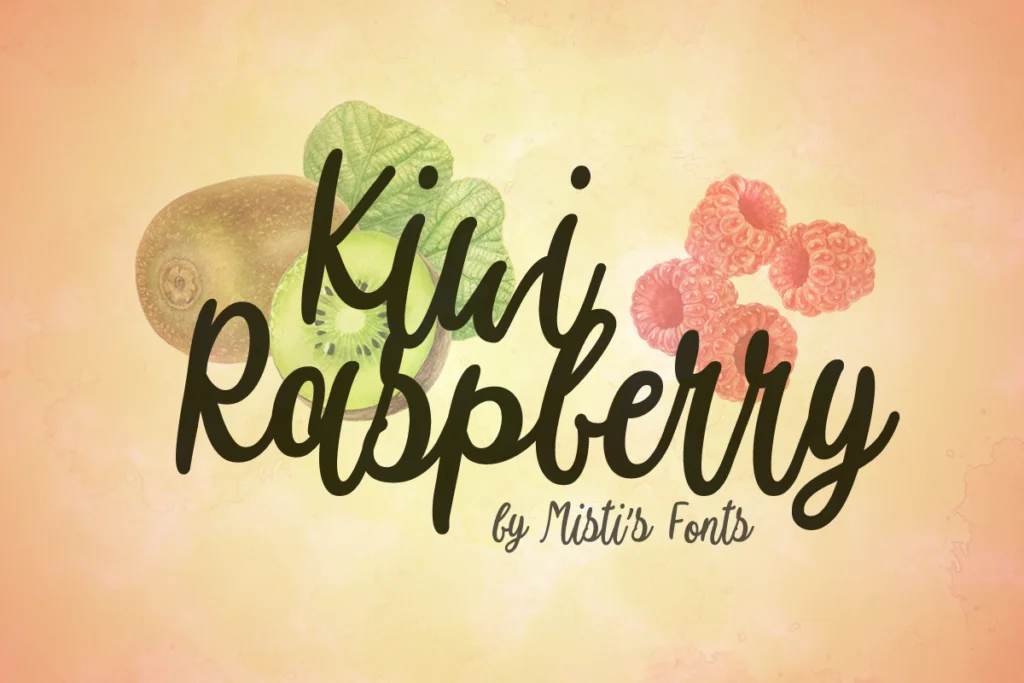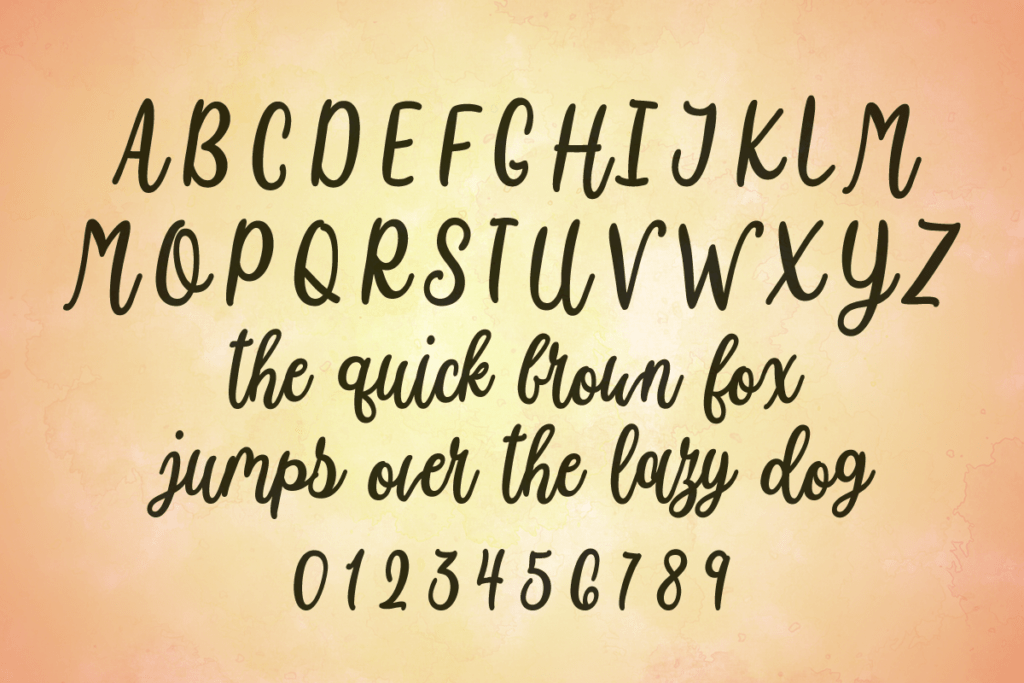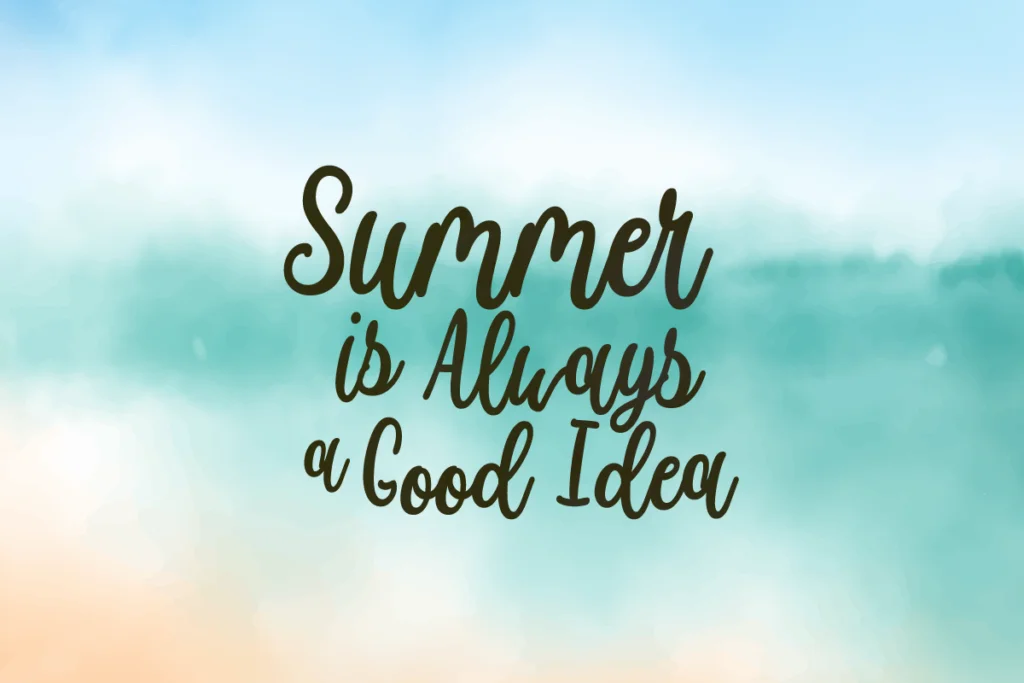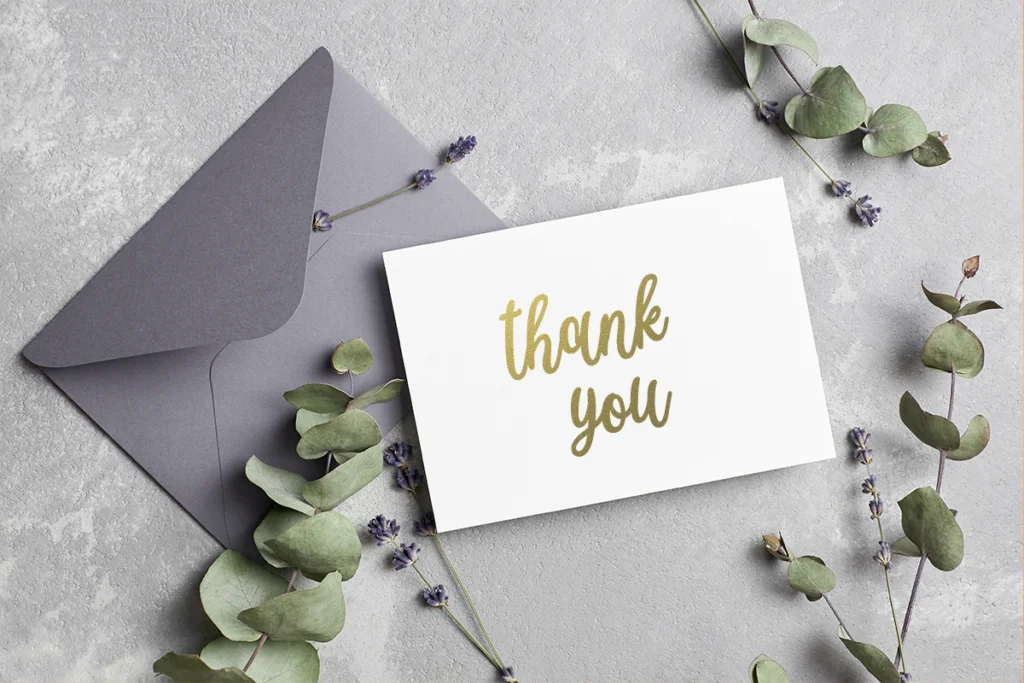
Kiwi Raspberry
Kiwi Raspberry Font
Kiwi Raspberry Font Sample letters
Kiwi Raspberry Font Sample summer quote
Kiwi Raspberry Font Sample thank you
About the Kiwi Raspberry Font
Kiwi Raspberry is a charming handwritten font. Allow its fun and whimsy style to inspire your summer projects. It would be perfect for viny and sublimation projects, and for creating stunning designs with your favorite cutting machine.